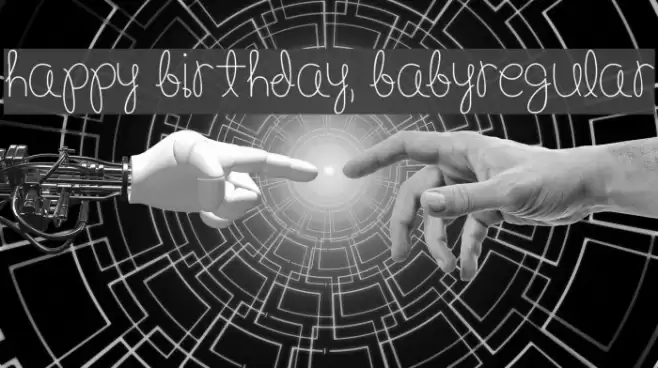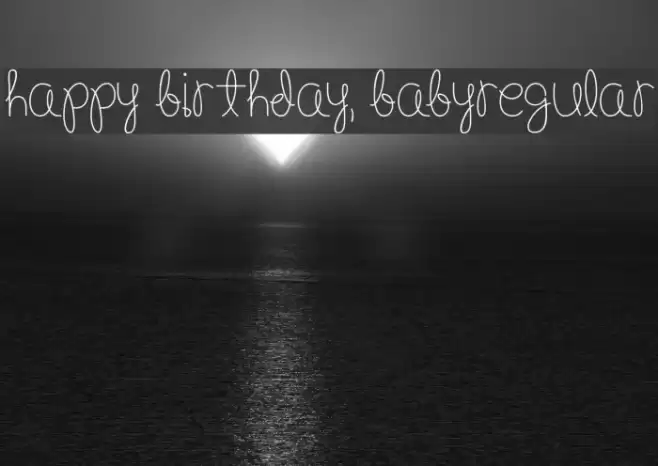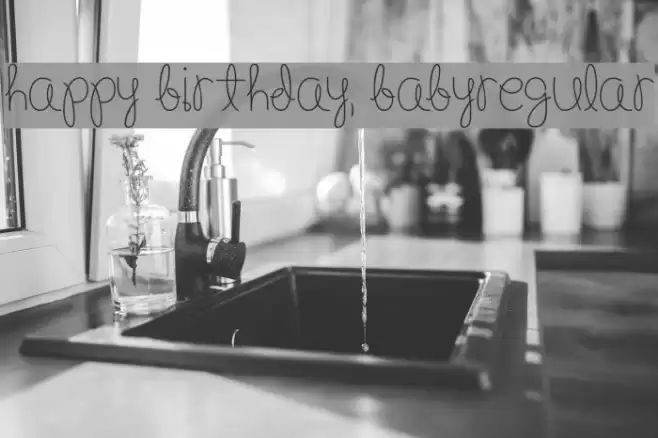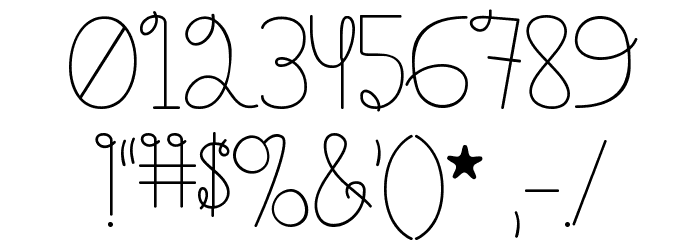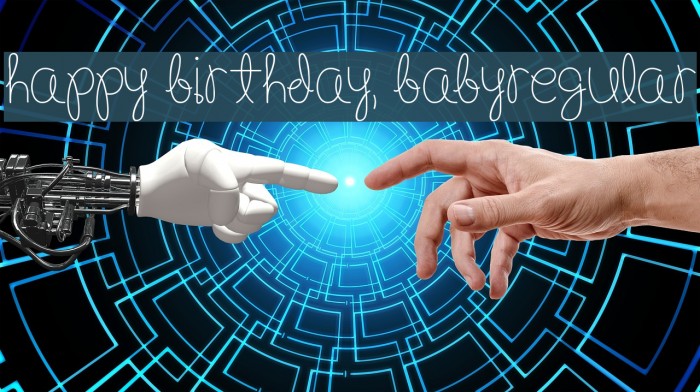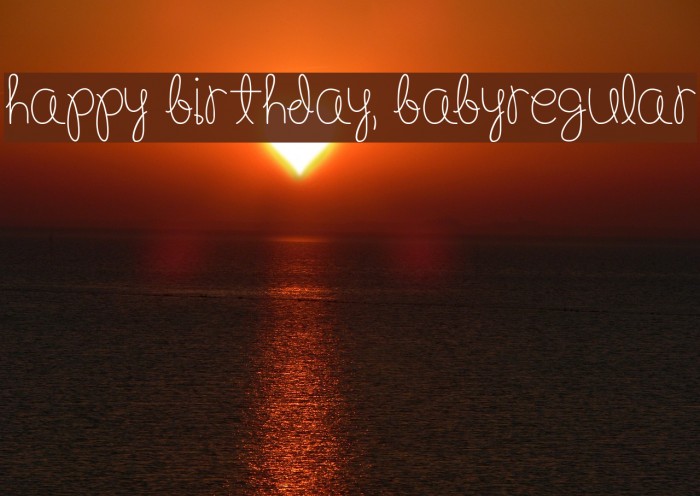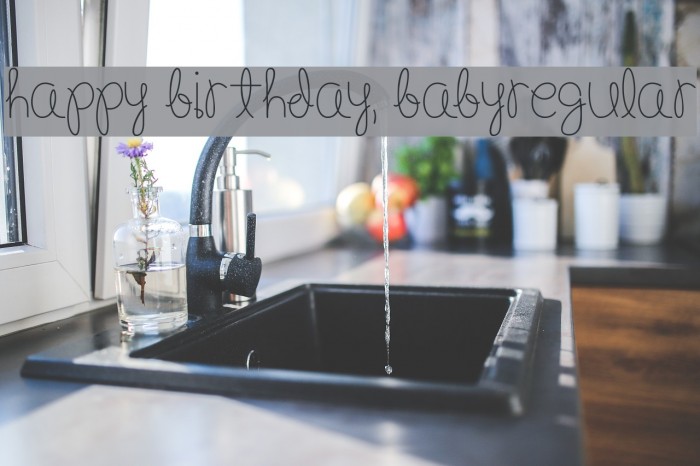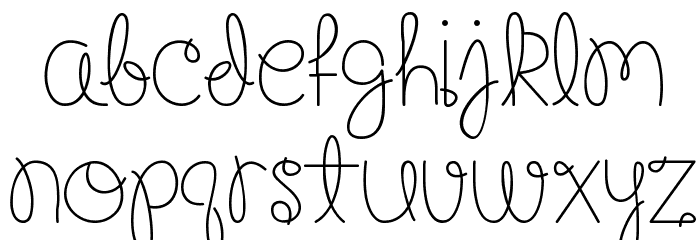
Happy Birthday, BabyRegular Font
Happy Birthday, BabyRegular Description
This playful and whimsical font features a handwritten style with a unique twist. Each character is crafted with a thin, elegant line that loops and curves, giving it a lively and joyful appearance. The letters are slightly elongated, adding a touch of sophistication while maintaining a casual feel. The font includes both uppercase and lowercase letters, numbers, and a variety of special characters, making it versatile for different design needs. Its distinct style is perfect for adding a personal touch to any project, whether it's a greeting card, invitation, or a fun logo.
A playful, handwritten font with elegant loops and curves from Curly fonts.
- Weight: Light